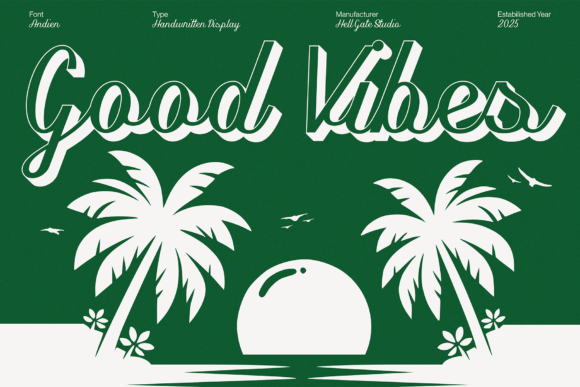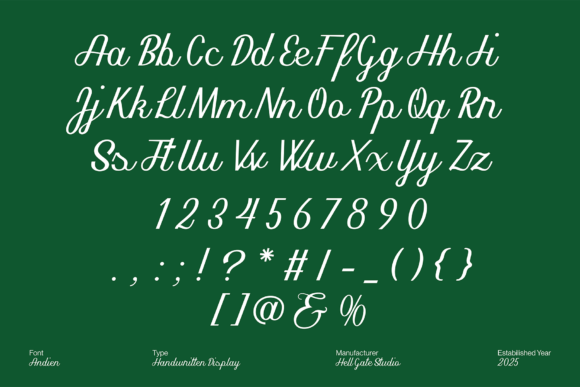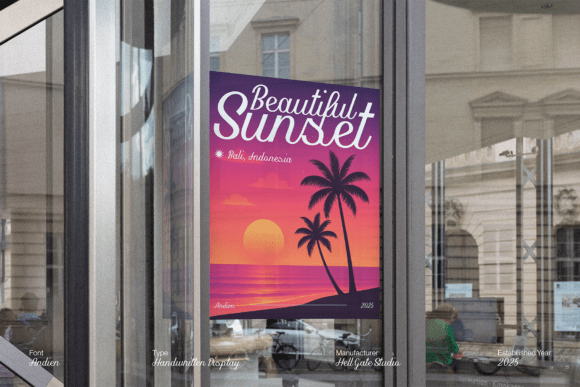
Andien Font: Elevate Your Design with Elegant Handwritten Flair
Meet Andien, a stunning handwritten display font that embodies the perfect blend of effortless elegance and warm approachability. Designed to capture the ease and fluidity of handwriting while maintaining a professional polish, Andien is the ideal choice for creative projects that require a personal yet refined touch.
The Essence of Andien
Andien’s beauty lies in its flowing strokes and natural rhythm, making it perfect for a wide range of applications, including branding, packaging, logos, invitations, and social media graphics. Each letter is carefully crafted with intention, exuding a relaxed sophistication that balances modern style with timeless handwritten charm.
Andien’s design is characterized by smooth curves and confident presence, making it more than just a font – it’s a storyteller. Its elegant and refined appearance is perfect for projects that require a touch of sophistication, while its warm and approachable feel ensures that it remains relatable and engaging.
Imagine using Andien to create stunning wedding stationery with graceful headlines, summer travel posters that radiate joy, or boutique product labels that speak with authenticity. This versatile font adapts beautifully to various design applications, delivering both impact and softness.
Applications of Andien
- Branding: Establish a unique identity for your business with Andien’s elegant and refined appearance.
- Packaging: Create eye-catching product labels and packaging that reflect your brand’s personality.
- Logos: Design a memorable logo that showcases your brand’s values and style.
- Invitations: Create beautiful wedding stationery, event invitations, or party flyers that exude elegance and sophistication.
- Social Media Graphics: Elevate your social media presence with stunning graphics that showcase Andien’s unique charm.
Why Choose Andien?
Andien offers a unique combination of style, elegance, and approachability, making it the perfect choice for designers and crafters looking to add a personal touch to their projects. Its versatility and adaptability ensure that it can be used in a wide range of applications, from digital designs to print materials.
Tips for Using Andien
- Experiment with sizes: Andien looks great in various sizes, from large headlines to smaller body text.
- Play with colors: Andien’s elegant appearance is complemented by a wide range of colors, from bold and bright to soft and pastel.
- Mix and match: Combine Andien with other fonts to create unique and visually appealing typography.
Andien is a beautiful handwritten display font that offers a unique blend of elegance, sophistication, and approachability. Its versatility, adaptability, and range of applications make it an ideal choice for designers and crafters looking to elevate their designs with a personal touch. Whether you’re creating branding materials, packaging, or social media graphics, Andien is sure to add character and warmth to your creative journey.